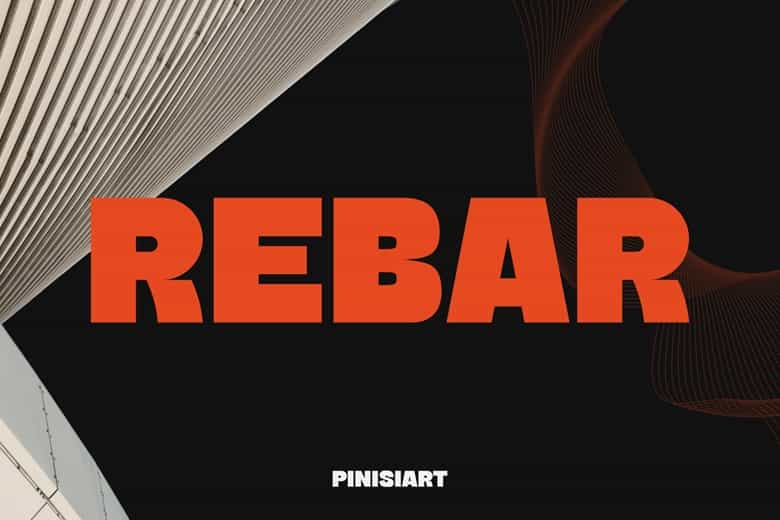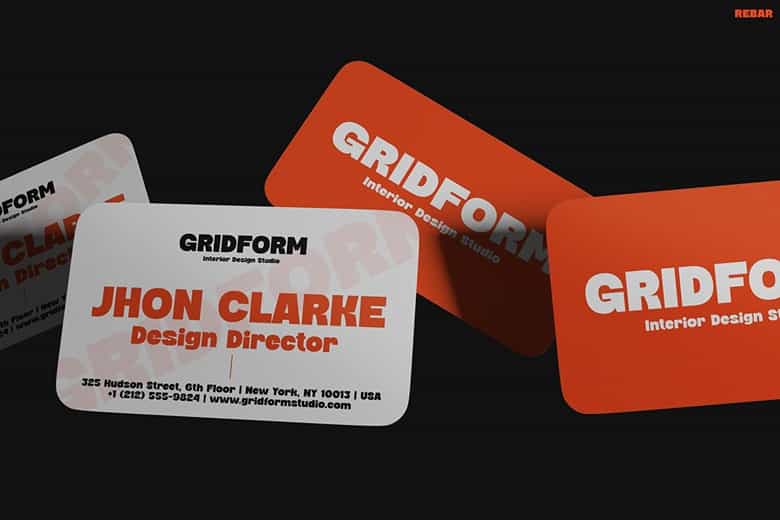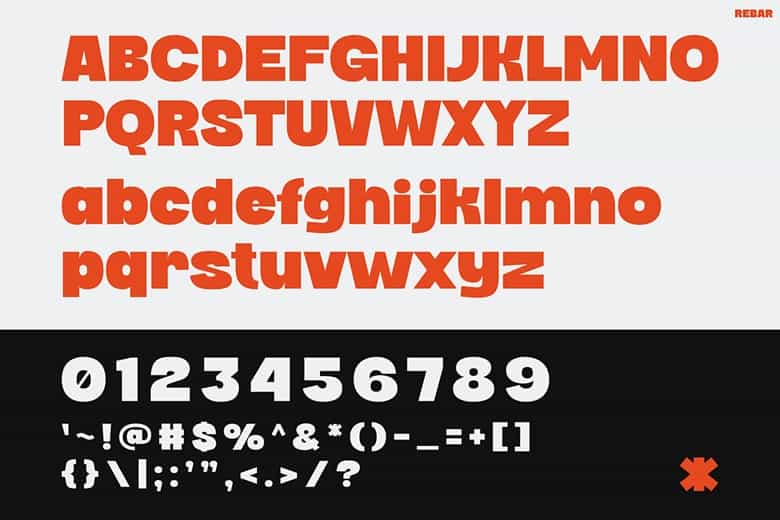
REBAR is an impressive font with a beautiful combination of modern brutalism and bold visual clarity. On the surface, the typeface has a bold and hard-edged feel due to its heavy, geometric designs, but it has a modern and striking freshness because of its polished geometry. REBAR is thought through as far as architecture and structure so it not only communicates, it establishes visual authority to your message. Thus, it is not a random display font, it is a base of the visual narrative that can be outstanding both online and in print.